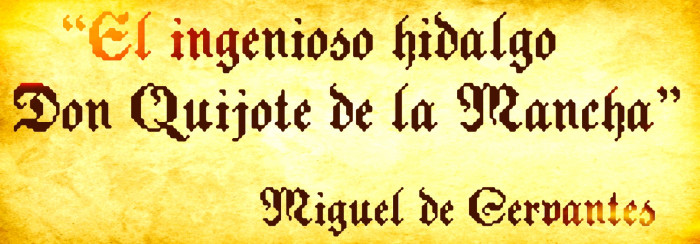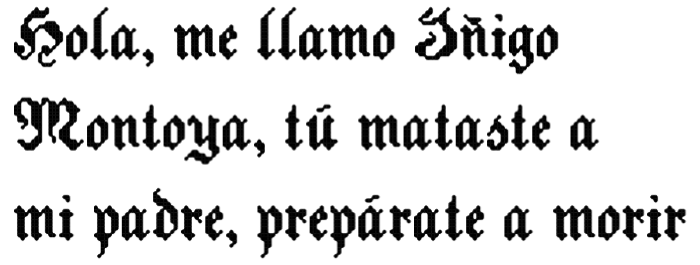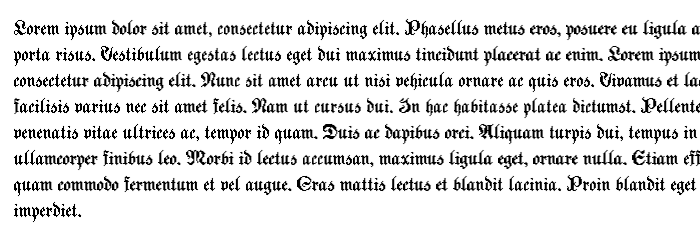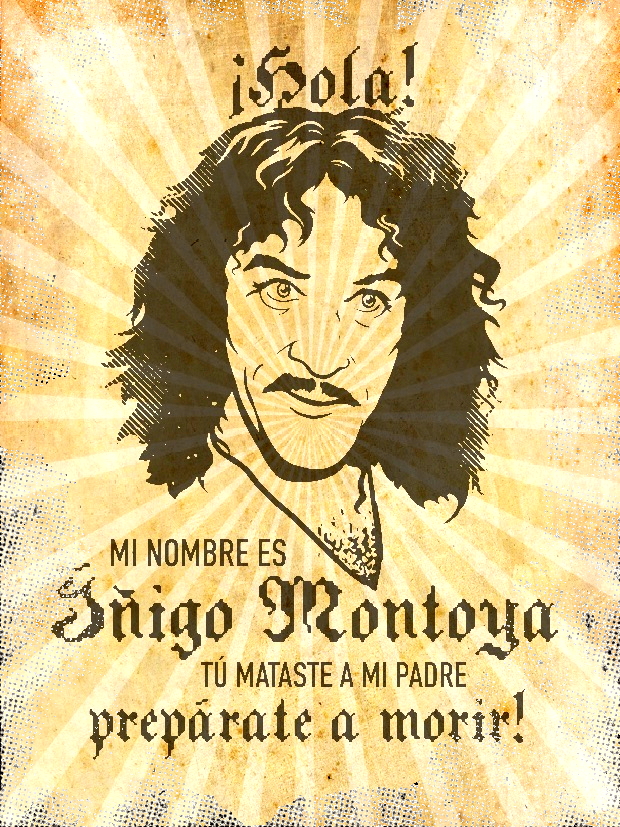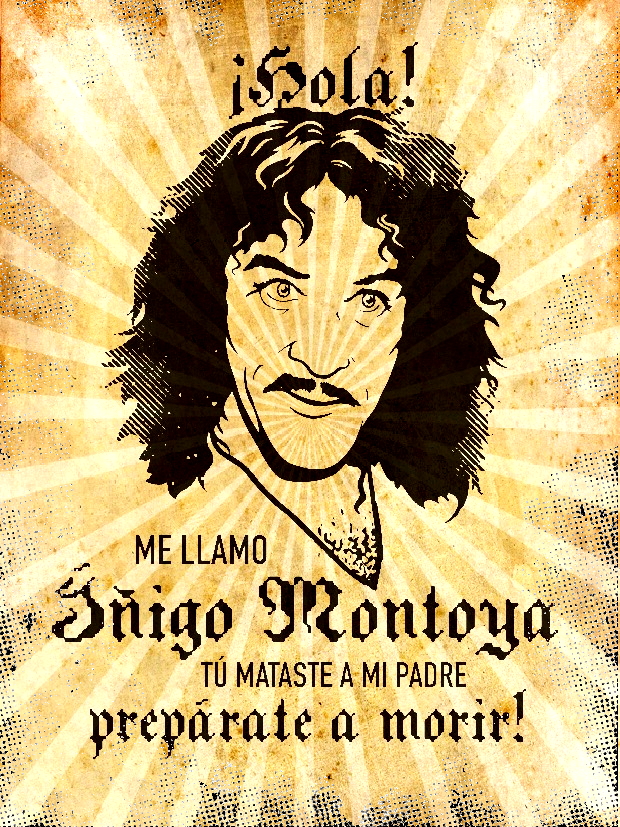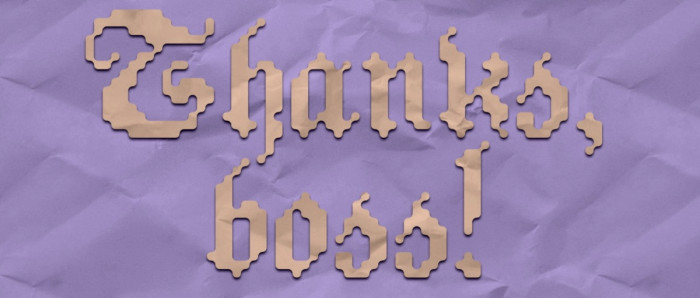
Pixel-rounded version of zhowfrakt. Another point of view, more "organic".
Very nice blackletter font. Some parts of the text sample are sharp, other parts are blurry. Since it is a quasi pixel font, the spacing and kerning distances should be divisible by whole pixels. The other font "zhowfrakt" has the same problem. Otherwise, it is a beautiful work. 10/10
@ Dear Frodo7: Thank you very much for your continuous support, master. These are my great mistakes (zhowfrakt is my first atempt to make a "complete" pixel font) but zoftfrakt is born more like a standard -and non true pixel- font. I'll try to improve them, thanks again.
@elmoyenique - At certain sizes, this font has a distressed / weathered / "ancient" look -- like something intentionally designed to mimic old typefaces or lettering on old maps.  I like this effect.  :^)
@Goatmeal: That was my first idea. BTW, I've used the kerning tool just in a few pairs of glyphs, searching basically this feeling of rare manual kern in old texts.
I feel as if the Long S can be easily made from the Essett…
As beautiful as the pixel version!
very nice design, it almost give the impression of being viewed through water
Beautiful.
the = looks like the = i would draw
I love it! THAT'S AMAZING!!!